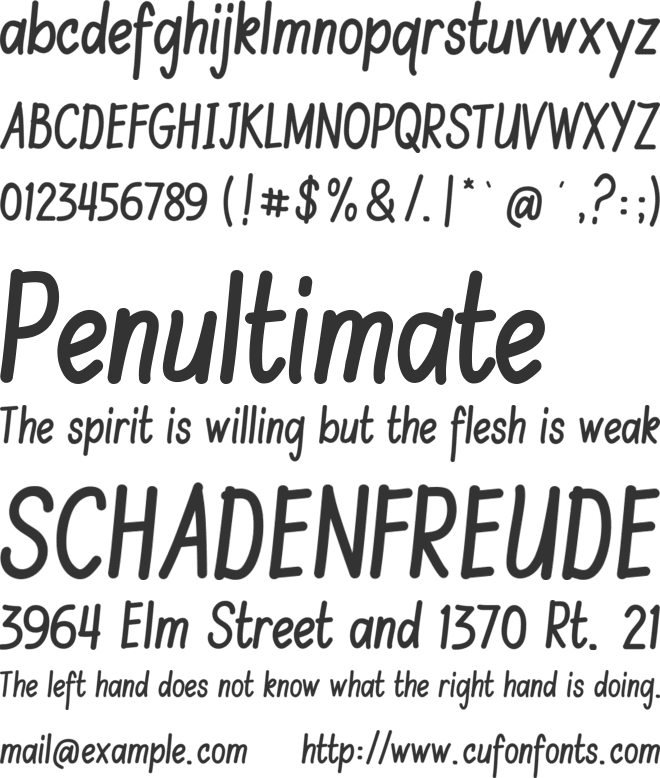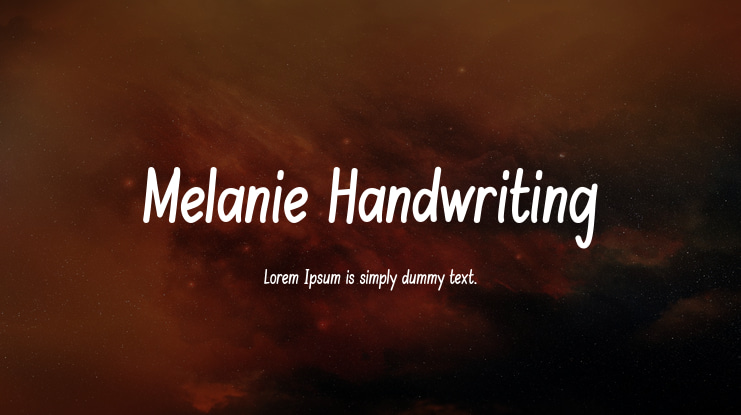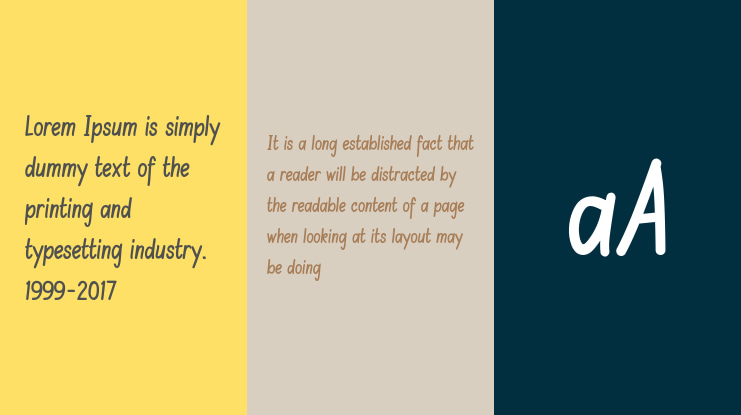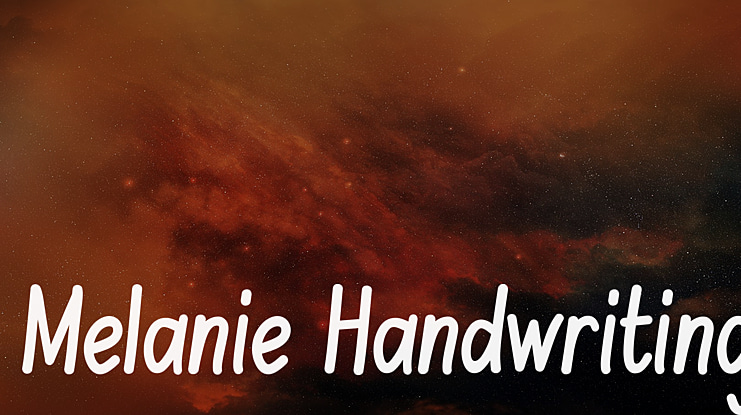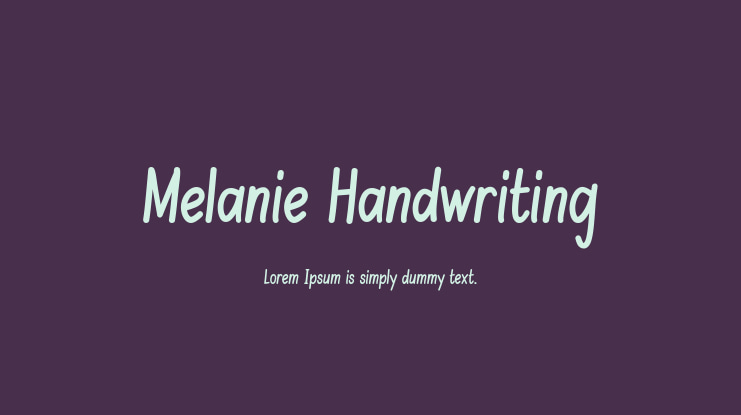
Melanie Handwriting Font
Melanie Handwriting is simple and cute handwritten font. Its informal style and casual vibes will make this font a go-to choice for each of the creations that require a relaxed touch.